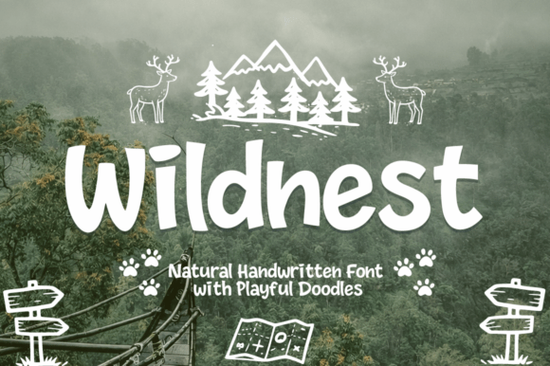
If you are looking to bring a rugged, outdoorsy feel to your next project, the Wildnest Font is a fantastic choice. This natural handwritten typeface captures the raw beauty of the great outdoors, making it perfect for designers and crafters who want to add an authentic, rustic touch to their work. With its organic letterforms and included nature doodles, it feels like a page straight out of a forest trail journal.
What makes this typeface stand out for outdoor projects?
The charm of this typeface lies in its slightly irregular, hand-drawn letterforms. It avoids the stiff, perfect lines of standard digital fonts, giving your text a friendly and approachable look. But what really sets it apart is the built-in collection of playful doodles. You get instant access to trees, mountains, animals, and nature symbols. This means you do not have to spend hours searching for matching graphics; the storytelling elements are already built right into the character set.
How can small businesses and POD sellers use it?
For print-on-demand sellers and small business owners, having a cohesive visual identity is crucial. This typeface works beautifully for camping gear packaging, apparel, and tote bags. Crafters making vinyl decals for water bottles or creating custom wooden signs for cabins will find the slightly irregular strokes much easier to weed and apply than overly complex scripts. If you run a sustainable brand or a local hiking club, the eco-friendly vibe helps you connect with nature-loving audiences. It is also a wonderful option for children’s adventure books or quotes posters, where a warm, handcrafted feel is necessary to engage the reader.
What other fonts pair well with it?
While this handwritten style is highly versatile, you might need a secondary font for body text or contrasting headlines. If you want to create a bold, eye-catching poster, pairing it with a thick outline style for the main headline can create a striking visual hierarchy. For a more nostalgic, retro camping vibe, combining it with a classic collegiate typeface works exceptionally well on merchandise. If you are designing a children's book and need something a bit more magical for the chapter titles, a whimsical, colorful script can add that extra touch of wonder. Alternatively, if you want to lean heavily into the sketchbook aesthetic, mixing it with textured brush strokes will give your layout a wonderfully raw, artistic feel. You can also explore more options when you browse the broader display fonts category to find the perfect supporting typeface.
How do you get the best results when designing with it?
To maximize the impact of your designs, think about the overall environment of your layout. This typeface thrives when paired with earthy color palettes like forest greens, muted browns, and soft terracottas. Backgrounds matter just as much as the text. Using textured, recycled paper backgrounds or subtle canvas overlays will enhance the rustic charm and make the organic shapes feel completely at home. Because the letterforms are naturally expressive, give them plenty of breathing room. Avoid cramming too much text into a small space, and let the playful doodles act as natural dividers or decorative elements around your main message.
Quick Design Checklist for Outdoor Branding
- Keep it natural: Stick to earthy, muted colors to let the organic letterforms stand out.
- Use the built-in graphics: Incorporate the included mountain and tree doodles to frame your text without needing extra assets.
- Add texture: Apply a subtle paper or canvas texture to your background to boost the handcrafted feel.
- Pair wisely: Use a clean, simple sans-serif for long paragraphs to ensure readability against the expressive display letters.
Start by sketching out your layout on actual paper to see how the organic shapes flow before moving to your digital software.